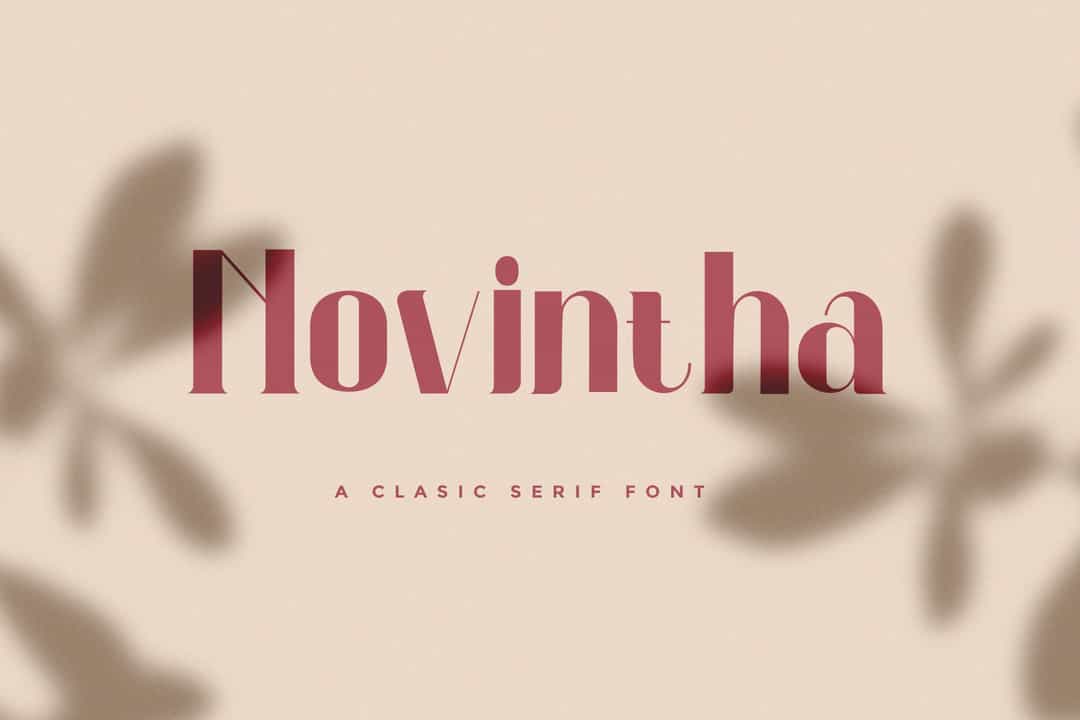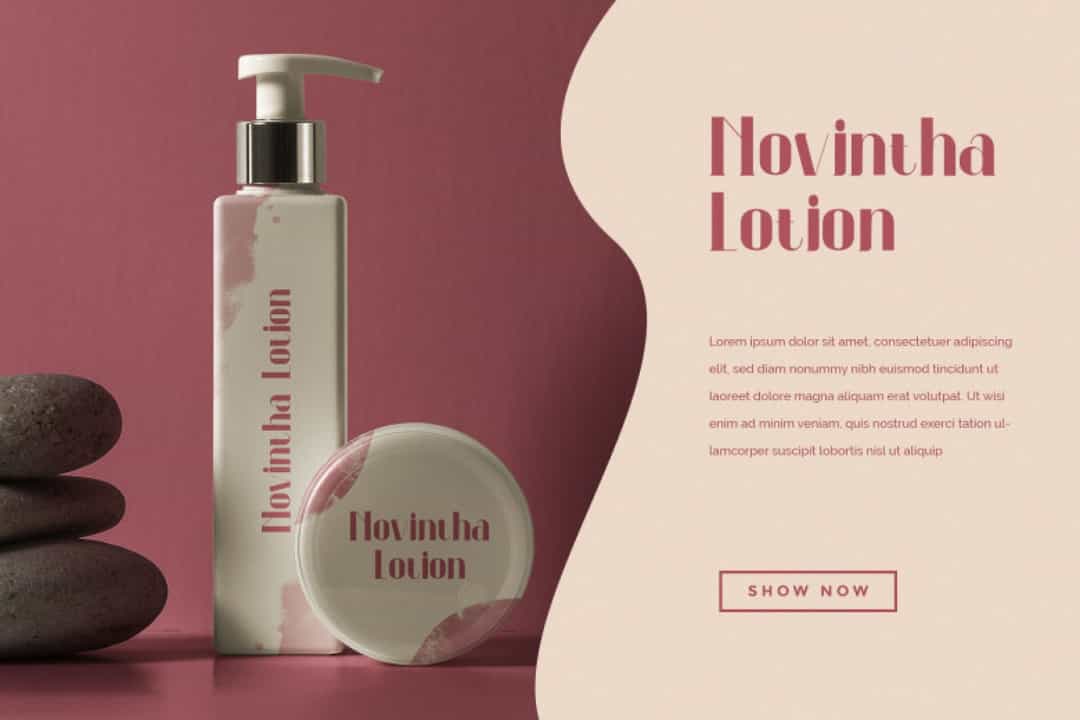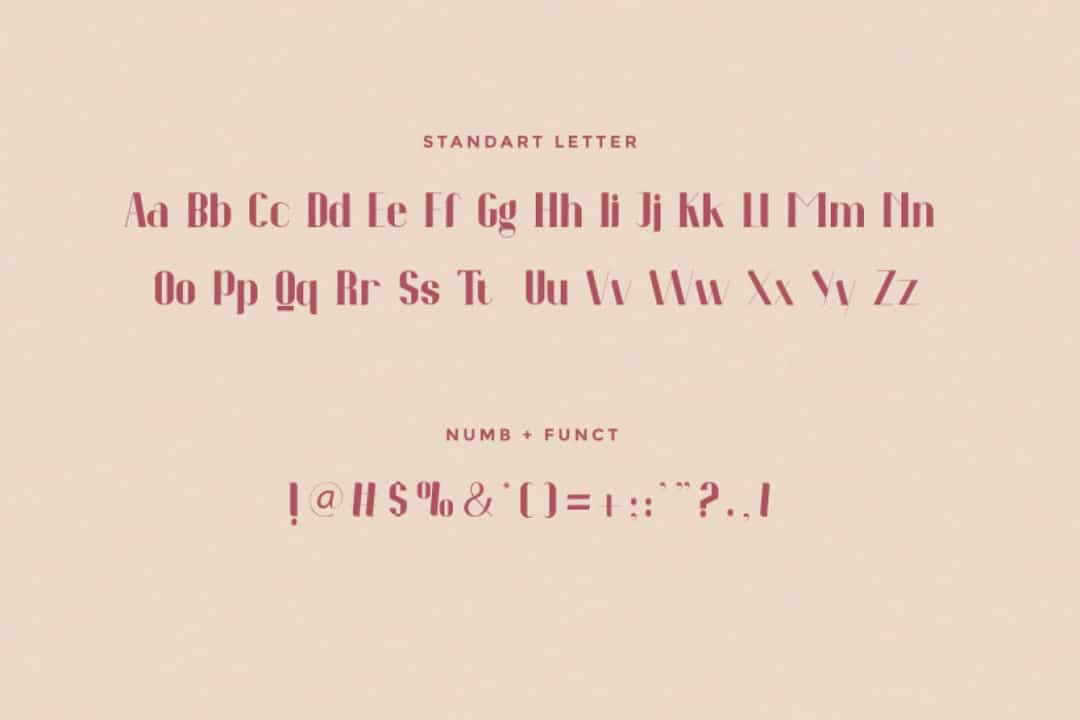
Novintha is a typeface that is condensed. It is full of character and is used to create headers and body copy, but it is mostly meant to be used for headers. This font is comprised of every Latin character (including accents) as well as special characters, numbers and punctuation.